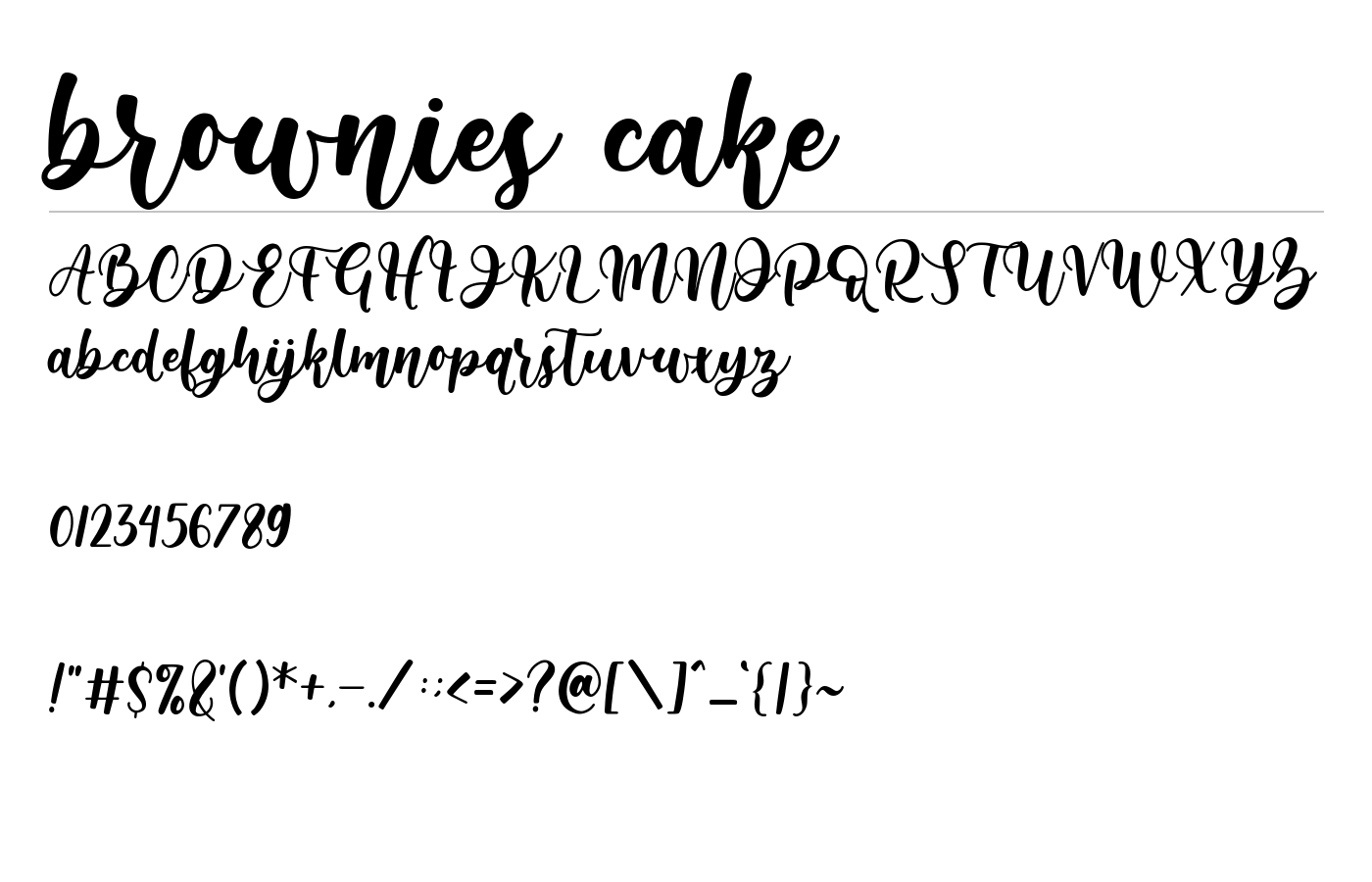
Brownies Cake is a charming, script-style font that features smooth, flowing strokes with medium contrast and a handwritten feel. Its playful and elegant letterforms, including a distinctive double-story lowercase "g" and lively uppercase characters, make it perfect for creative designs like invitations, branding for bakeries or lifestyle products, and casual yet stylish headlines. This font adds a warm, inviting personality wherever a friendly and approachable look is desired.
brownies cake Font
About brownies cake Font
| Designer | Ghazi Humam Fauzan |